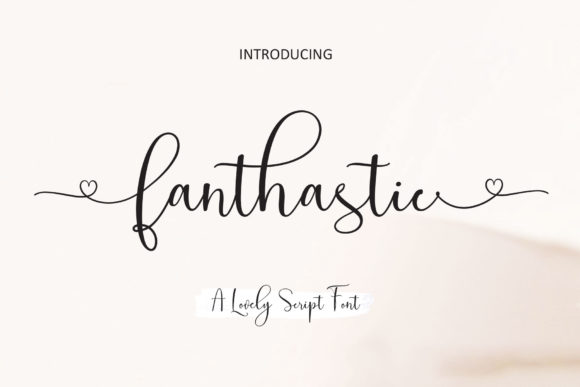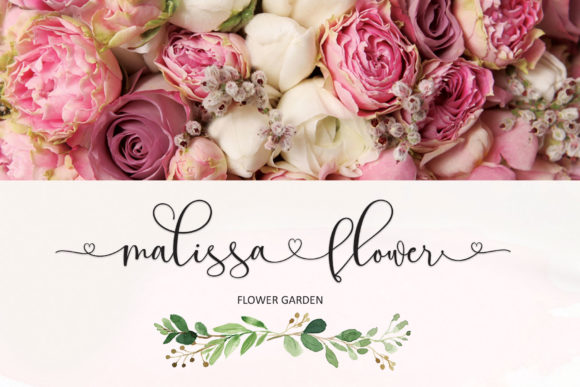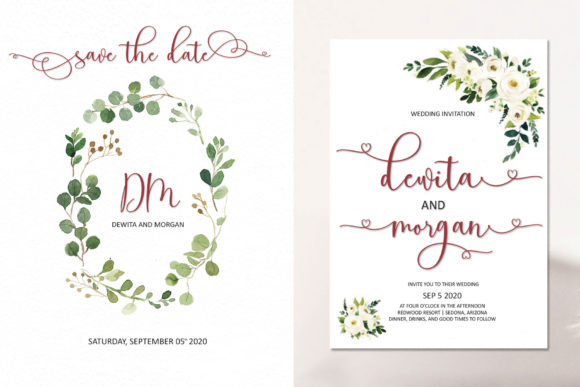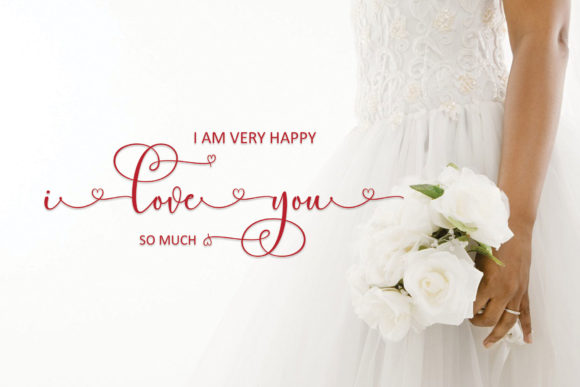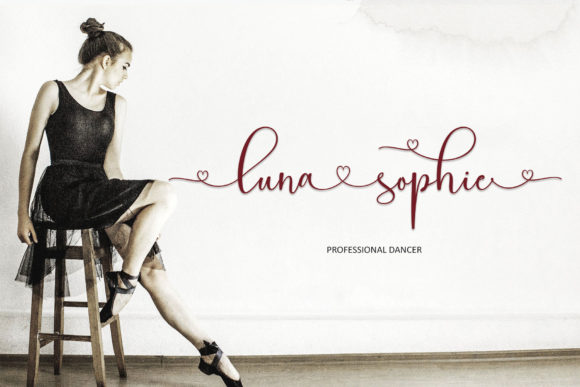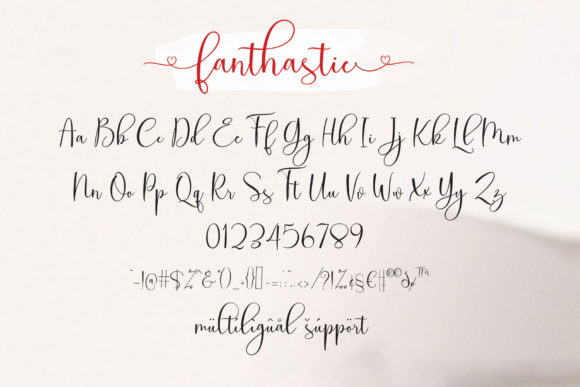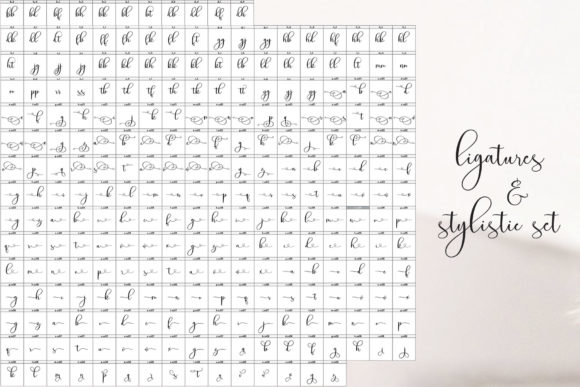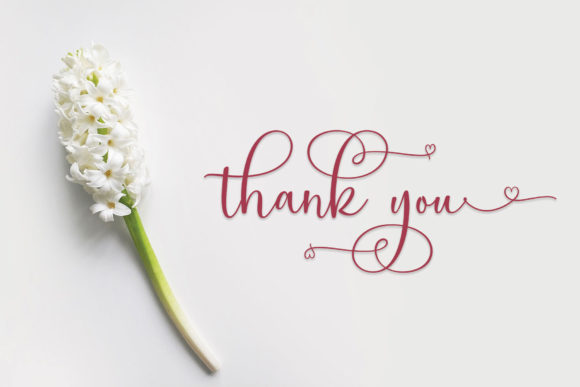
Fanthastic Font
About Fanthastic Font
Fanthastic is a sweet, soft hand-lettered script. The playful rounded characters make it the perfect font for creating stunning crafting art. Fanthastic comes packed with gorgeous ligatures and alternates, that will allow you to add a decorative touch within seconds. Get inspired by its authentic feel and use it to create gorgeous wedding invitations, beautiful stationary art, eye-catching social media posts, and cute greeting cards.